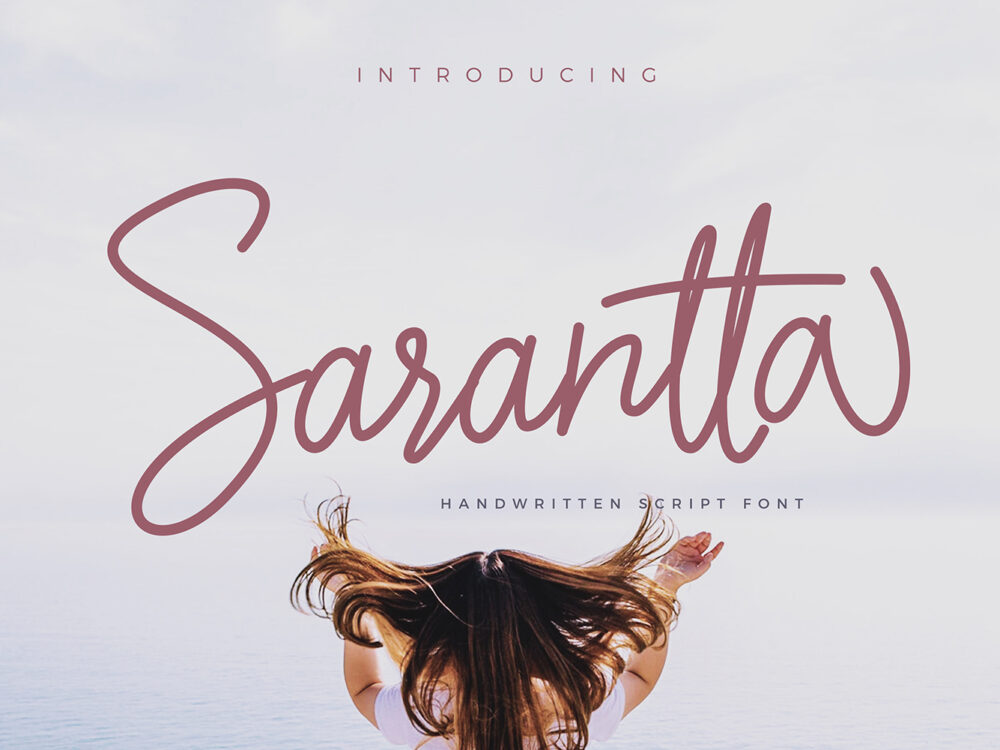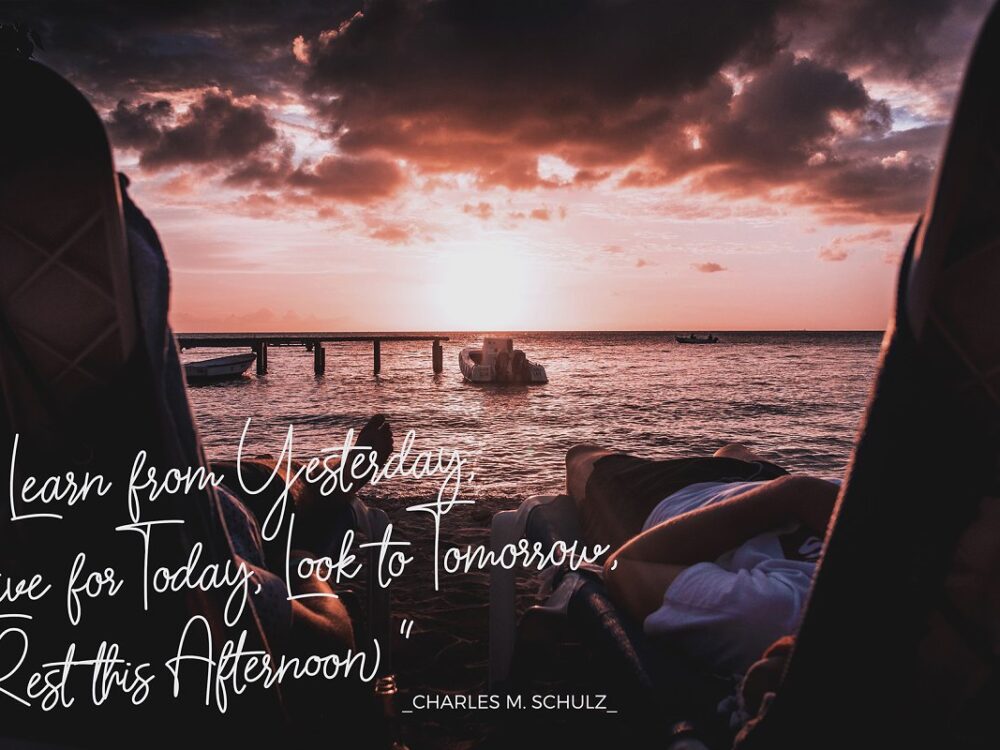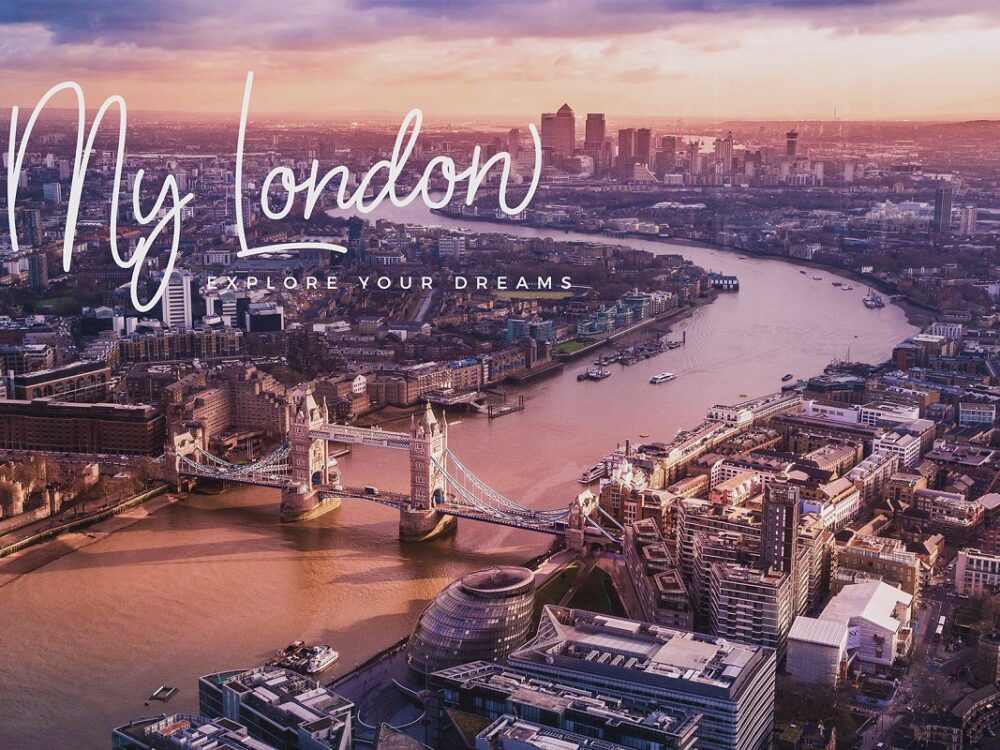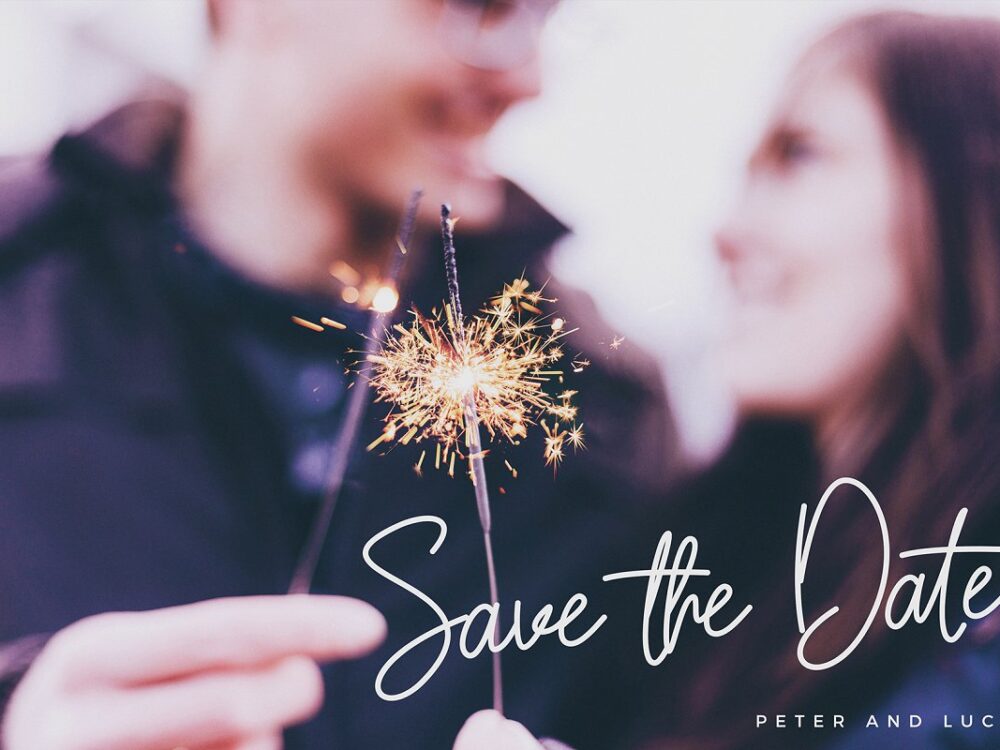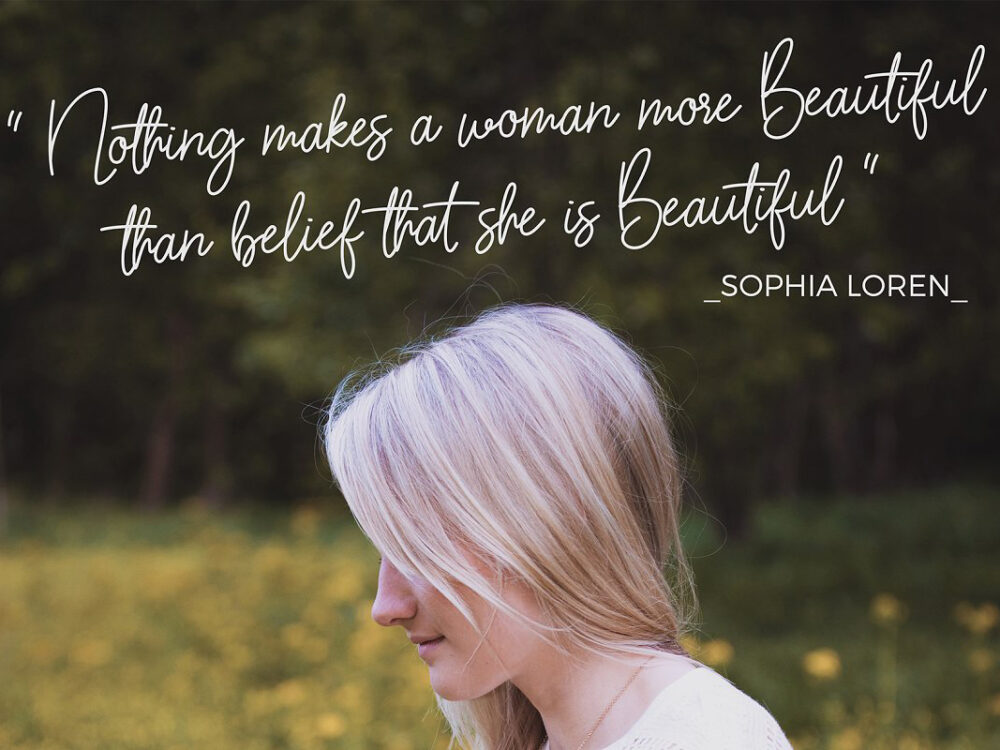
Sarantta Handwritten Script Font
If you are looking for a modern handwritten font for your logo design, poster, invitation, apparel prints then Sarantta Handwritten Script Font is the perfect option for you. The font has the versatility and will suit almost any creative fantasy.  So, if you wish to access more features and use it for commercial work, go get the full version as well.